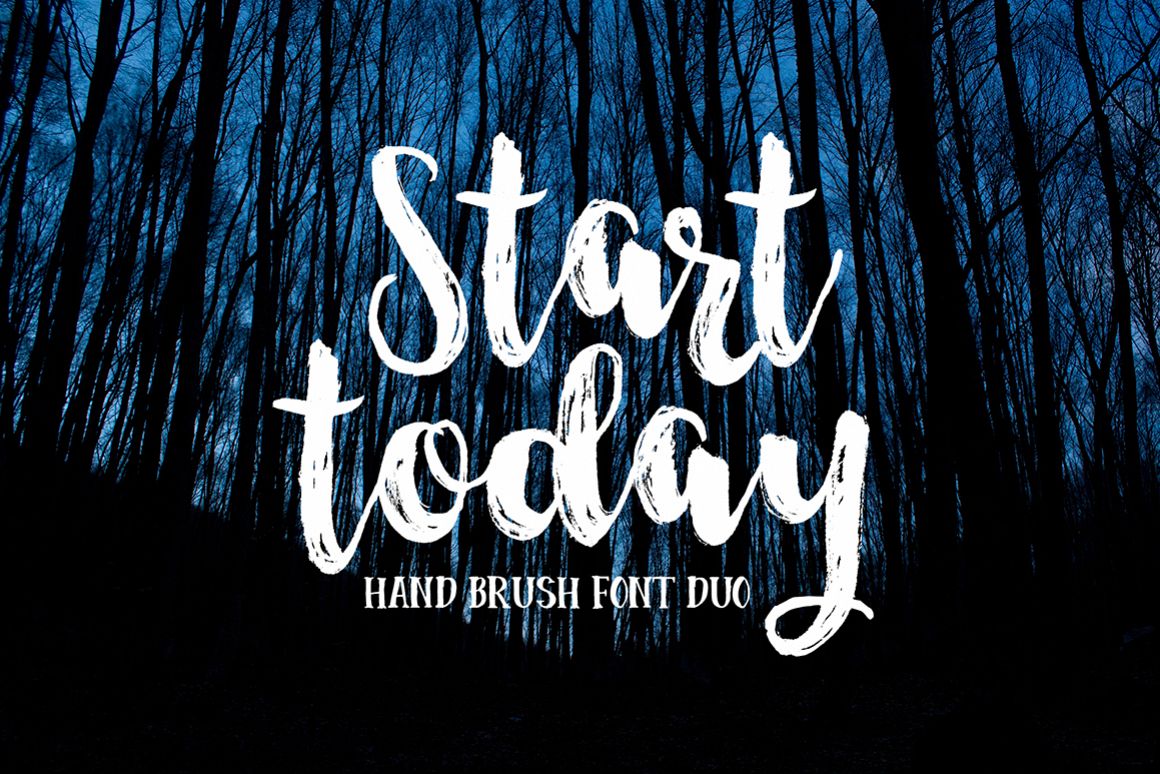
Start Today - Brush Font Duo
Start Today Sans
Start Today Extra
Start Today
Start Today is a super casual hand brushed script with detailed brush stroke texture, and a quirky, all uppercase sans serif font, also has the dashing swashes in all the letters to add punch to your designs. Can used for various purposes. such as the title, signature, letterhead, signage, labels, newsletters, posters, logo, correspondence, wedding invitations, badges, etc.Fonts Included (as OTF and TTF). Start Today Brush Font has some features of alternative characters, ligatures and International Support for a review of most Western languages ??included.To enable the OpenType Stylistic alternates, you need a program that supports OpenType features such as Adobe Illustrator CS, Adobe Indesign & CorelDraw X6-X7, Microsoft Word 2010 or later versions.How to access all alternative characters, using Windows Character Map with Photoshop: https://www.youtube.com/watch?v=Go9vacoYmBw How to access all alternative characters using Adobe Illustrator: https://www.youtube.com/watch?v=XzwjMkbB-wQ Start Today Brush Font is coded with PUA Unicode, which allows full access to all the extra characters without having special designing software. Mac users can use Font Book , and Windows users can use Character Map to view and copy any of the extra characters to paste into your favourite text editor/app.